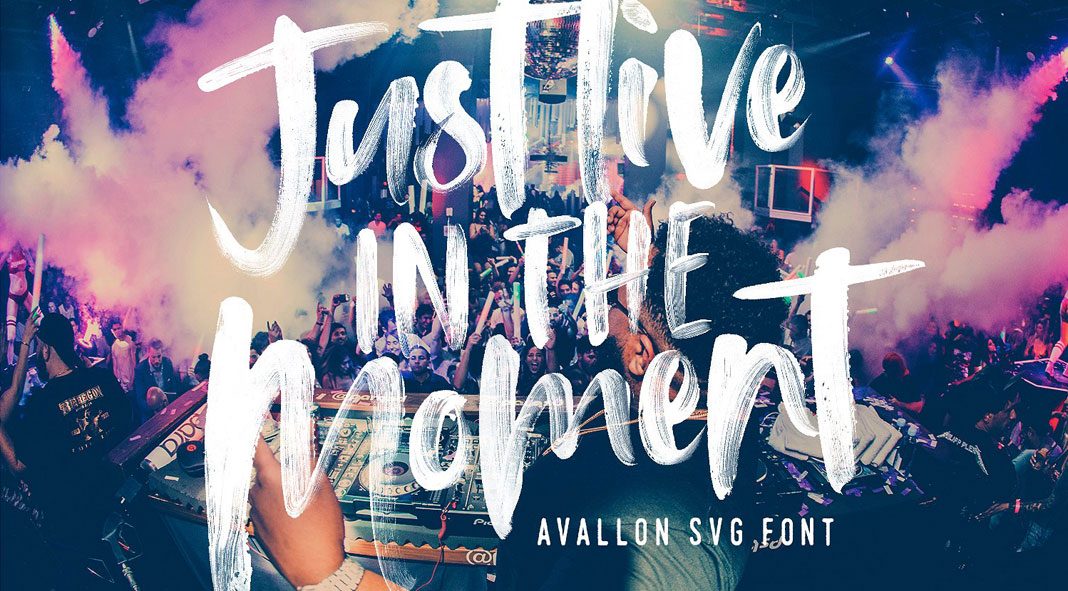
Avallon, a new OpenType-SVG font designed by Sam Parrett.
You may have heard about the new OpenType-SVG font format, which allows us to add much more details to the letters. Based on this new format, type designer Sam Parrett has recently published Avallon, a handpainted brush font. By using high-resolution images of real brush strokes, the font provides a more detailed look. Please note, the OpenType-SVG format requires professional tools such as Photoshop CC 2017 and Illustrator CC 2018 (or newer). You can get their latest versions from the Adobe Creative Cloud website, just check it out here.